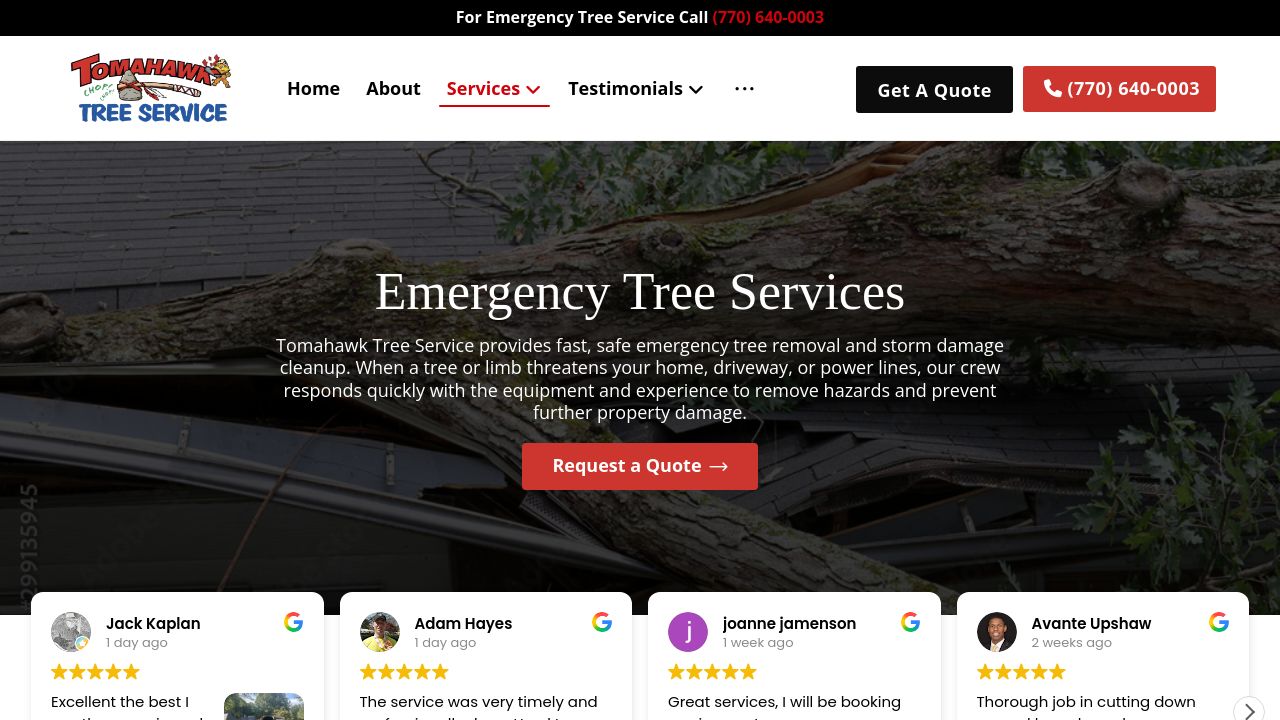
Tomahawktreeservice.com uses Open Sans, Font Awesome\ 6 Free, Trustindex Poppins, Font Awesome\ 6 Brands and Memv Ya Mi Zp BA Muw as its main typefaces. Lucida Grande, Impact, Roboto and helvetica-neue are declared as fallbacks. 15 fonts detected, last checked Sep 24, 2026.
Tomahawk Tree Service, a leader in emergency tree removal in Atlanta, utilizes a range of fonts that reflect their commitment to clarity and accessibility. The primary use of Open Sans enhances readability for their audience, while the inclusion of custom icons like FontAwesome and czicons provides visual cues for service offerings. System fonts like Lucida Grande and Impact underscore their direct approach, ensuring a strong visual identity that resonates with clients in need of urgent assistance.
font-family: 'Trustindex Poppins', sans-serif;These fonts are listed in the CSS as backups. The browser only falls back to them if the main fonts above fail to load.
Tomahawktreeservice.com uses Open Sans, Font Awesome\ 6 Free, Trustindex Poppins, Font Awesome\ 6 Brands and Memv Ya Mi Zp BA Muw as its main typefaces. Lucida Grande, Impact, Roboto and helvetica-neue are declared as fallbacks. 15 fonts detected, last checked Sep 24, 2026.
The primary fonts used include Open Sans, FontAwesome, Lucida Grande, Impact, and custom fonts like Memv Ya Mi Zp BA Muw and Trustindex Poppins.
The fonts chosen, like Open Sans and Lucida Grande, prioritize legibility and user-friendliness, making them suitable for emergency services, unlike more decorative fonts that could distract.
The fonts feature various weights, including Open Sans at weight 300, Font Awesome at weights 400 and 900, and Trustindex Poppins at weights 400 and 600, providing flexibility in design.